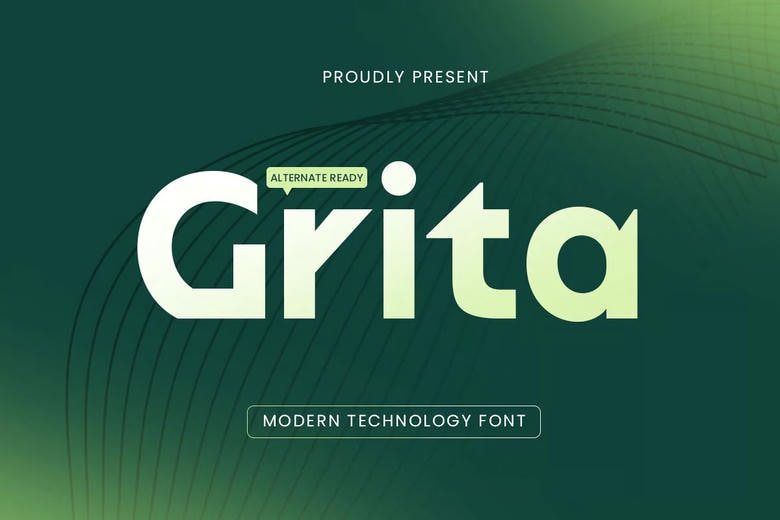
Grita Font
Grita is a modern technology font designed for innovation-driven brands and digital-first design systems. Its clean structure, futuristic vibe, and smart spacing make it ideal for tech startups, app interfaces, product packaging, and UI/UX headlines.
Grita strikes a perfect balance between modern aesthetics and professional readability. Whether you’re building a corporate identity or a new SaaS platform, this font delivers a sleek and trustworthy impression.
With its streamlined characters and versatile style, Grita empowers your brand to speak the language of technology and progress.
Grita Sans Serif Font